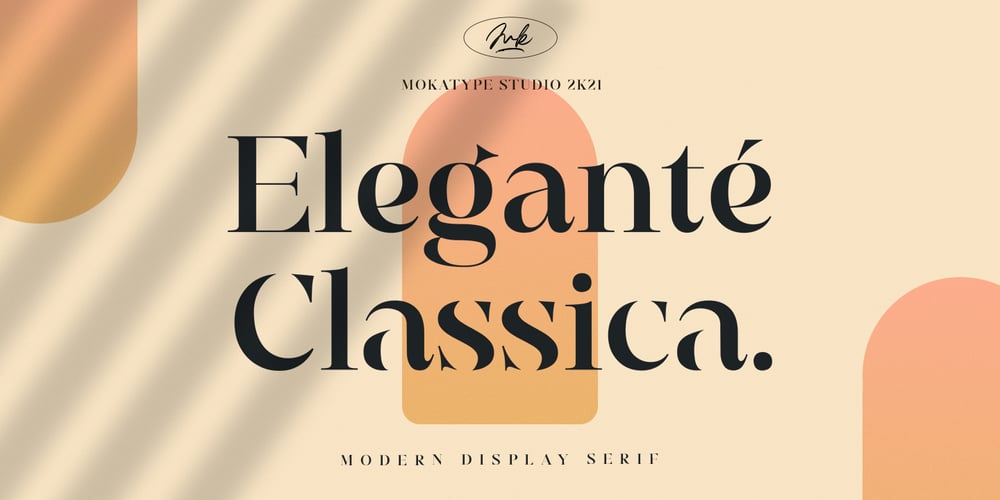
Elegante Classica
Elegante Classica Font Family was designed by Abdul Malik Wisnu, Rivo Adriansyah and published by Mokatype Studio. Elegante Classica contains 2 styles and family package options. Hello Introducing, Elegante Classica – Luxurious Serif Display is an elegant, inspired by the famous minimalist logo, perfect for the purposes of designing templates, brochures, videos, advertising branding, logos and more. Perfect for adding a unique twist to word-mark logos, monograms or pull quotes. Accessible in the Adobe Illustrator, Adobe Photoshop, Adobe InDesign, even work on Microsoft Word. PUA Encoded Characters – Fully accessible without additional design software. Fonts include multilingual support Image used : All photographs/pictures/vector used in the preview are not included, they are intended for illustration purpose only.Thank You